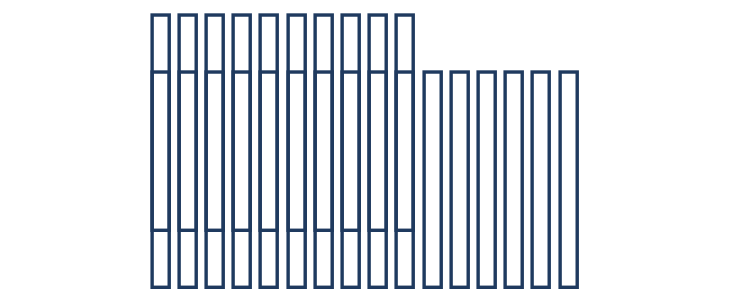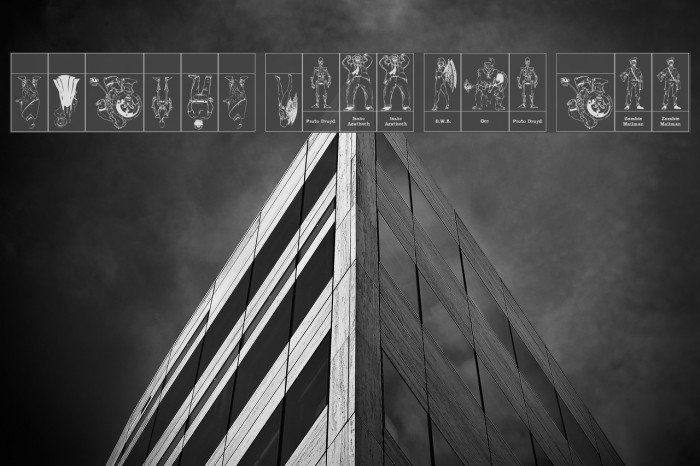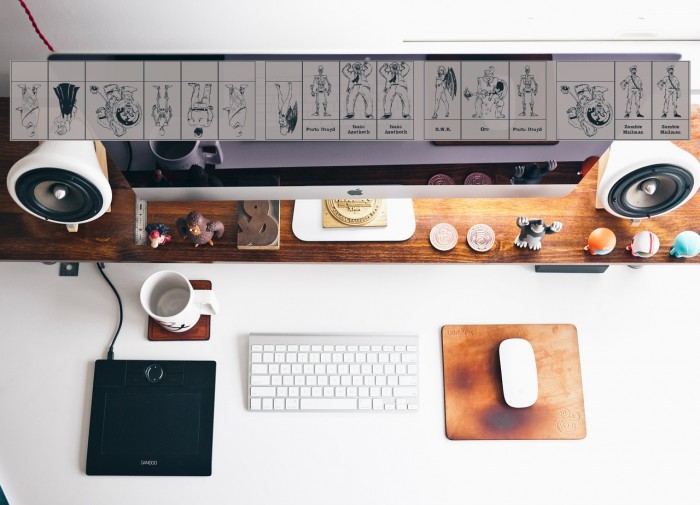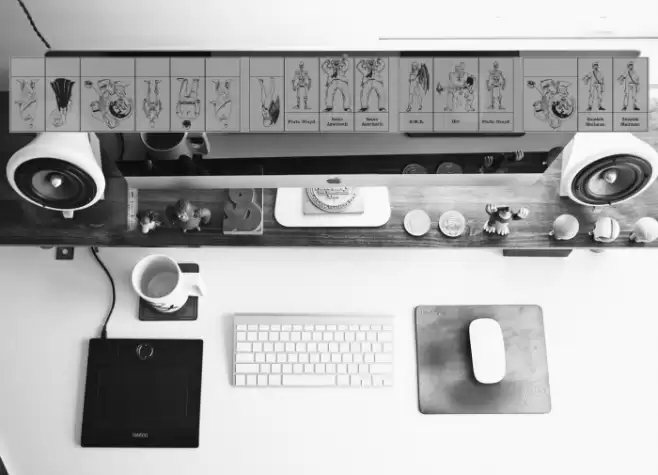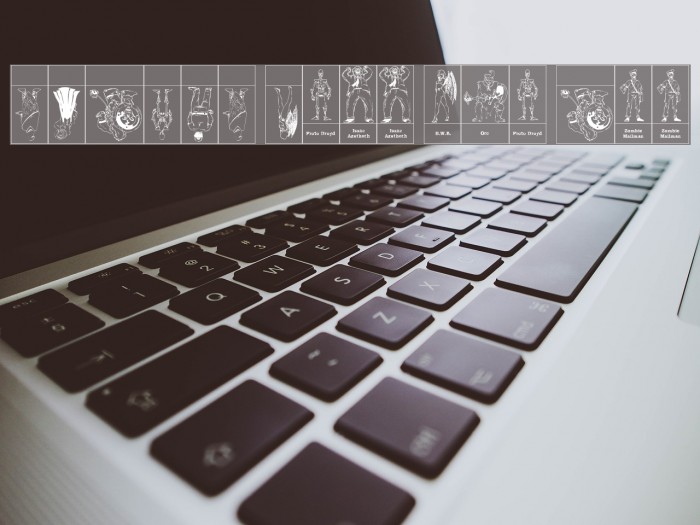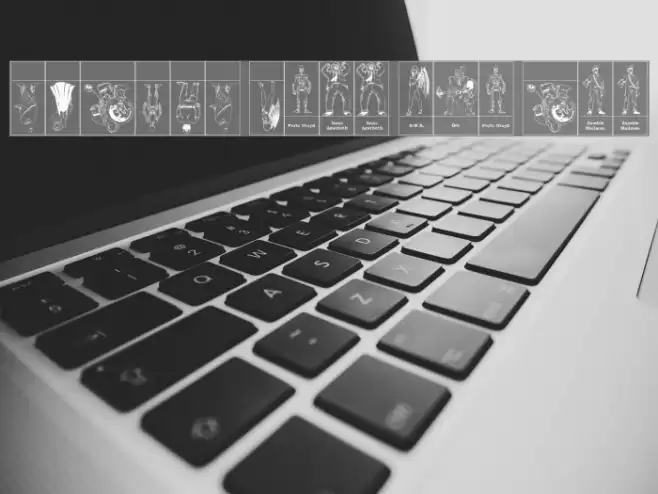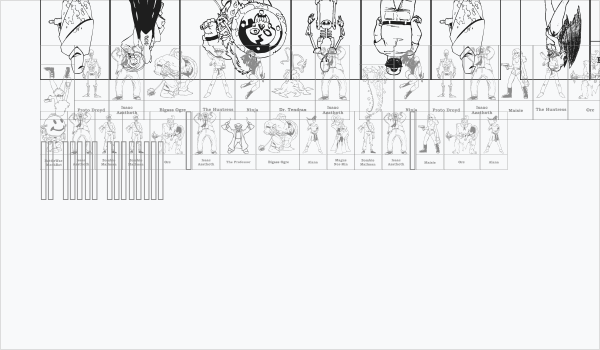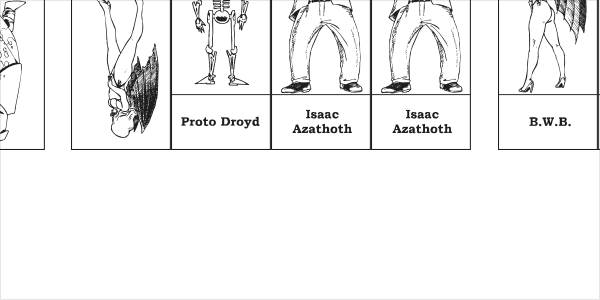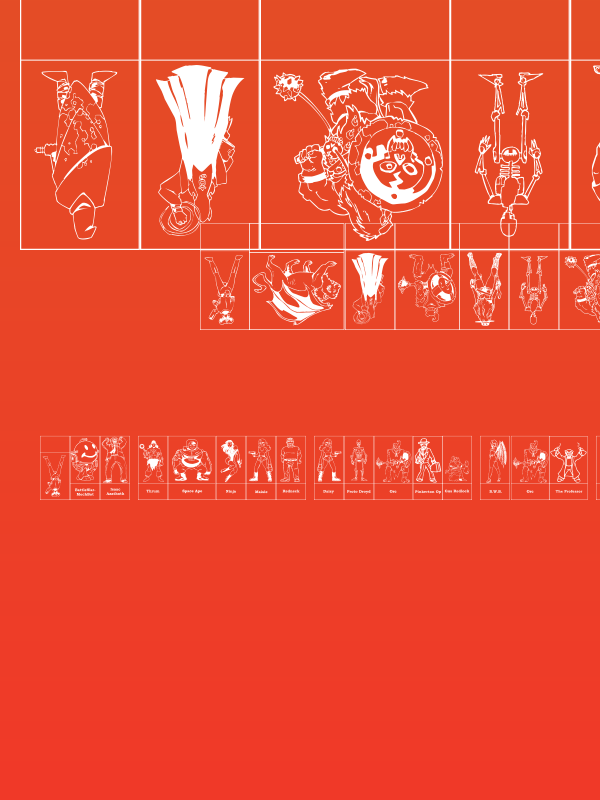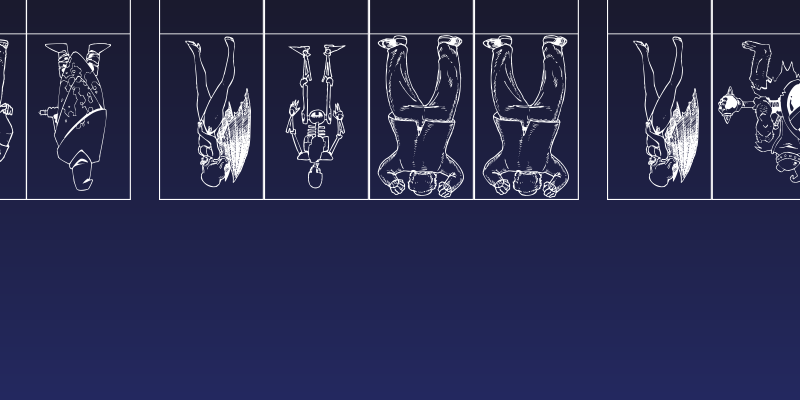
SPARKS Free for All Font
SPARKS Free for All Description
A highly decorative and illustrative font where each character is represented by a unique comic-style superhero or fantasy figure, each drawn in black and white line art. The glyphs are detailed, with each letter or symbol personified or themed, making the font visually complex and playful.
| Overall Style | Decorative, Playful, Comic |
| Use Case | Headlines, Posters, Logos, Themed Graphics |
| Proposed Projects | Comic book titles, themed event posters, children's party invitations, novelty branding, entertainment industry graphics. |